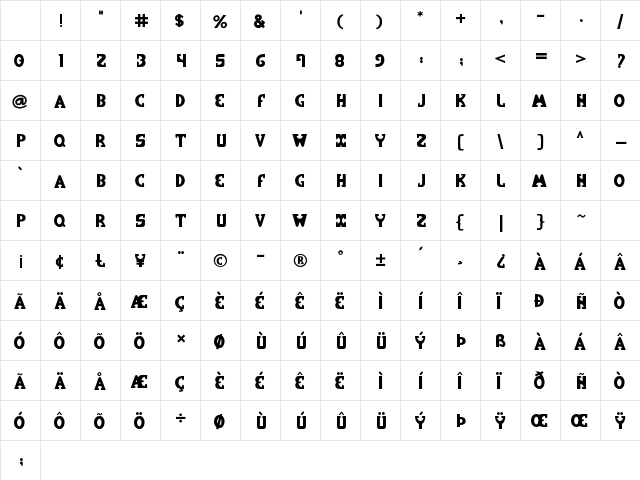
Complete Nails & Hammer Normal glyph index. Displaying only characters natively supported by Nails & Hammer Normal font.
Nails & Hammer is a composed and adaptable typeface that performs quietly and consistently across a wide range of design contexts.
Who designed the Nails & Hammer Normal font?